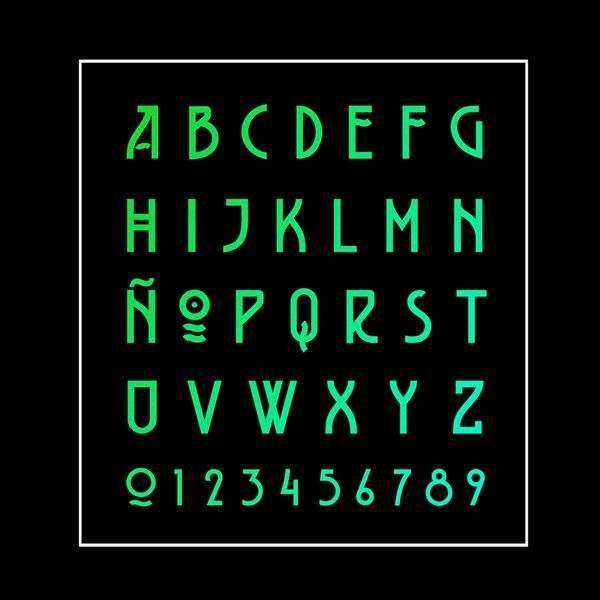
Free Font Of The Day #195 – Belladona Font
Belladona Font
Belladona is a powerful and reminiscences vintage font ideal for decoratice designs. Designed by Tano Veron.
Belladona Font